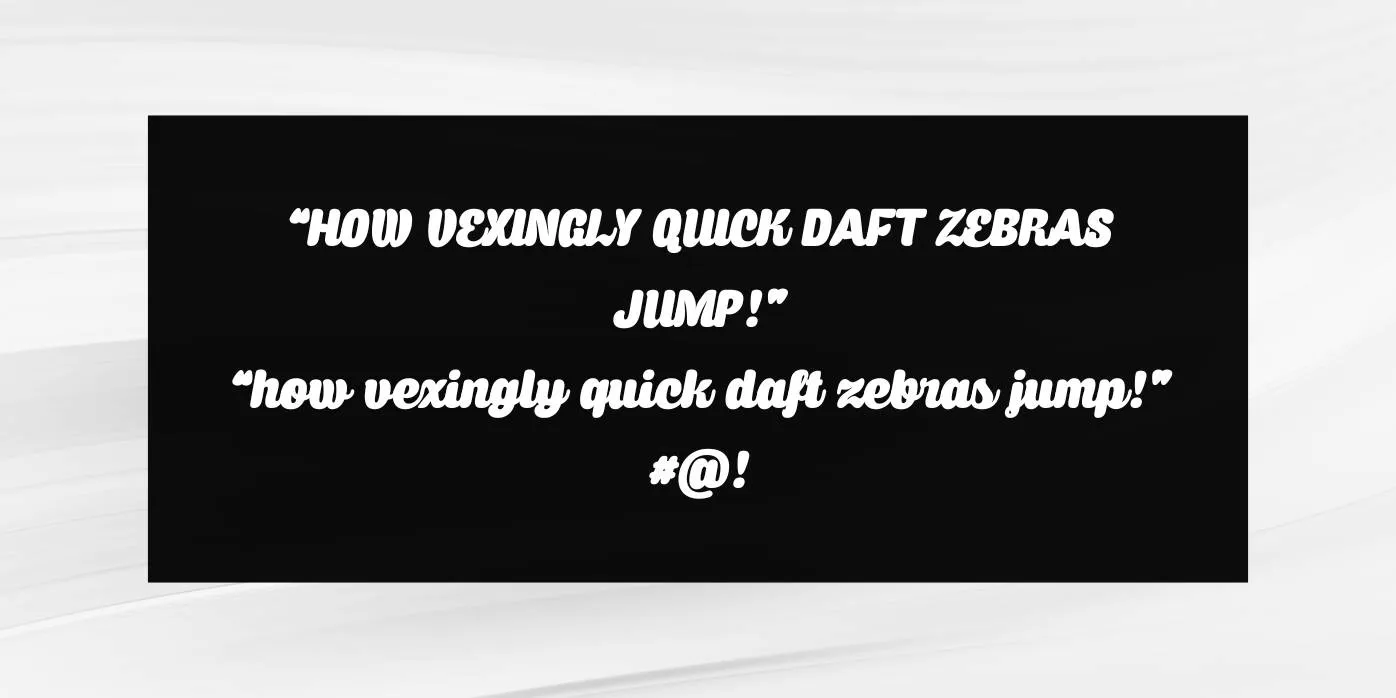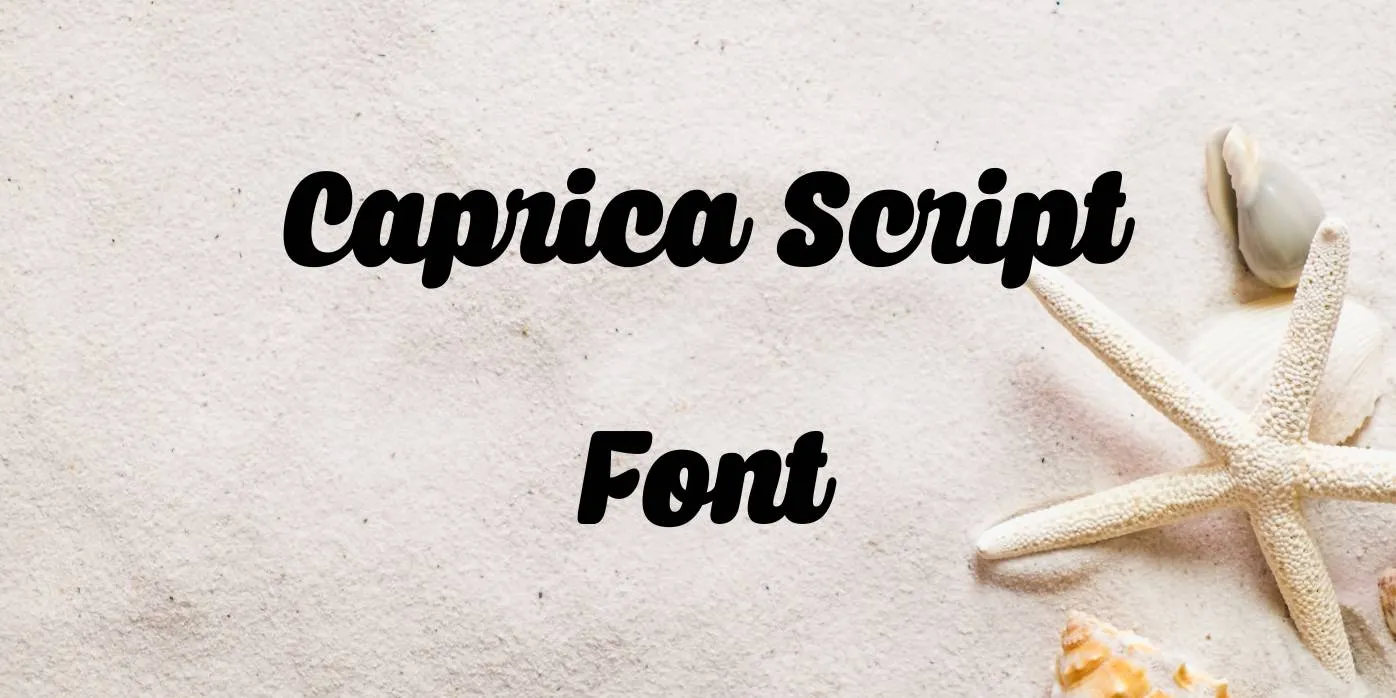
Caprica Script Font
Caprica Script Font is a script type of font. This typeface has stunning, stylish, bold, and script-type font. Mans Greback is the developer for this texture. This typeface has two different styles.